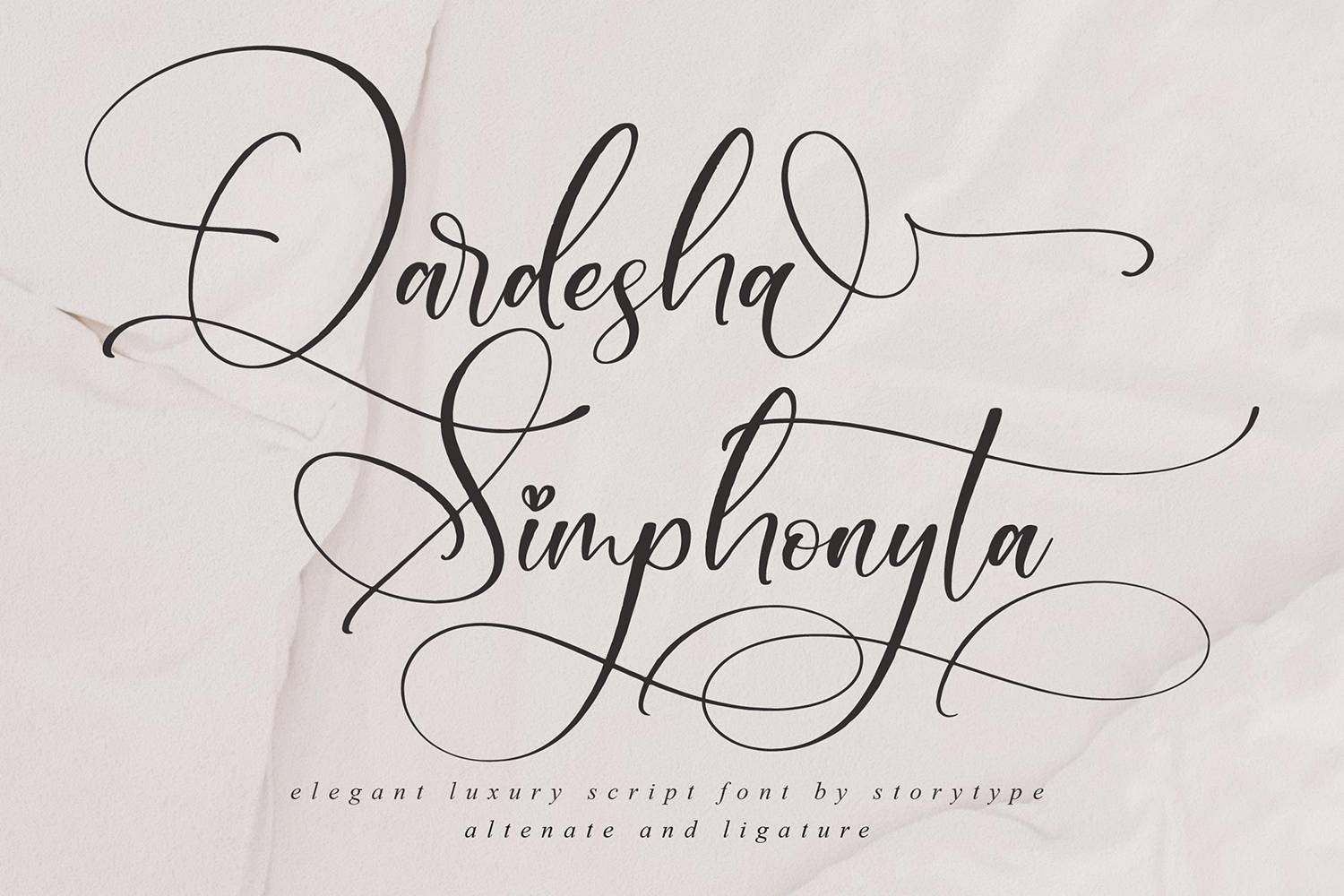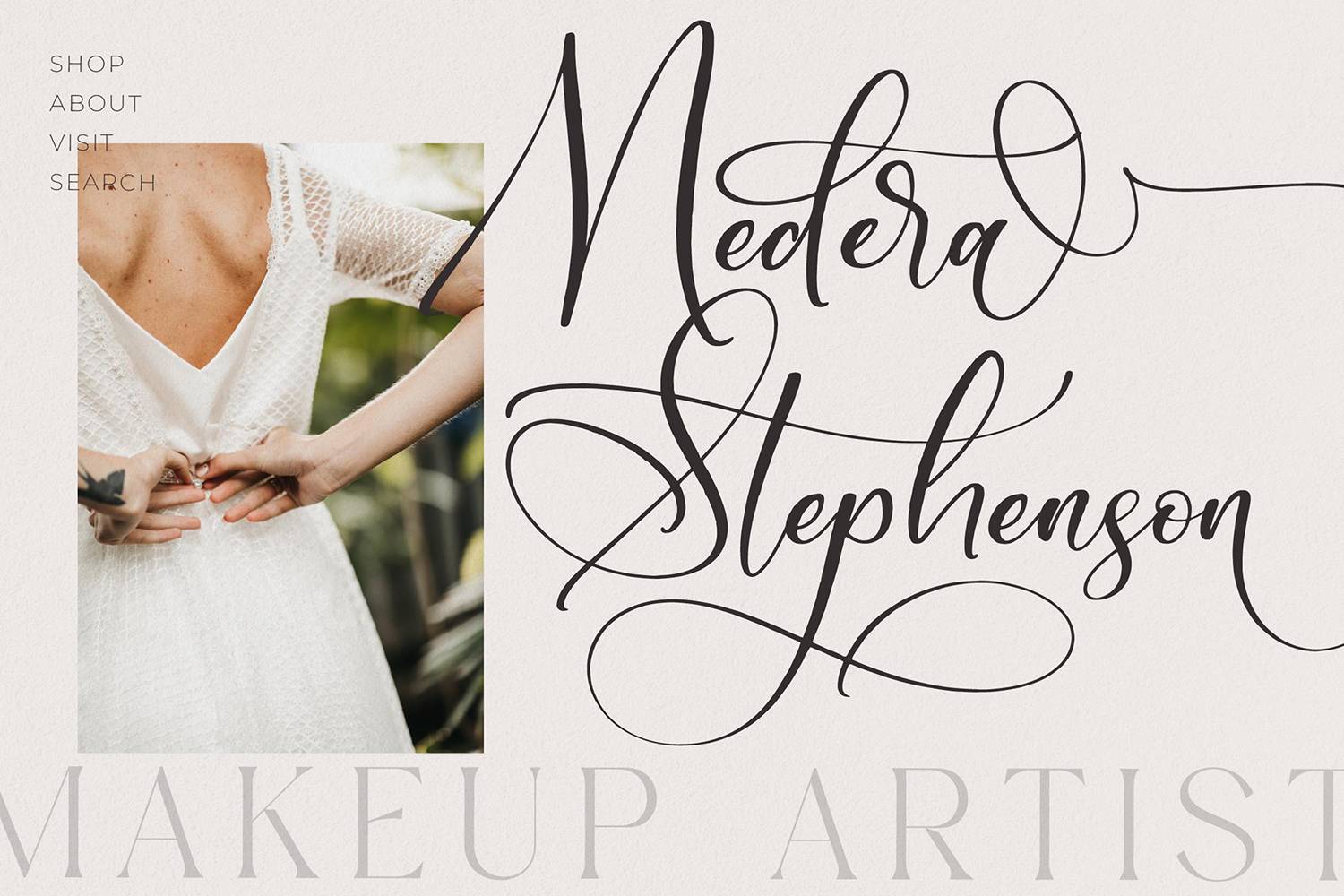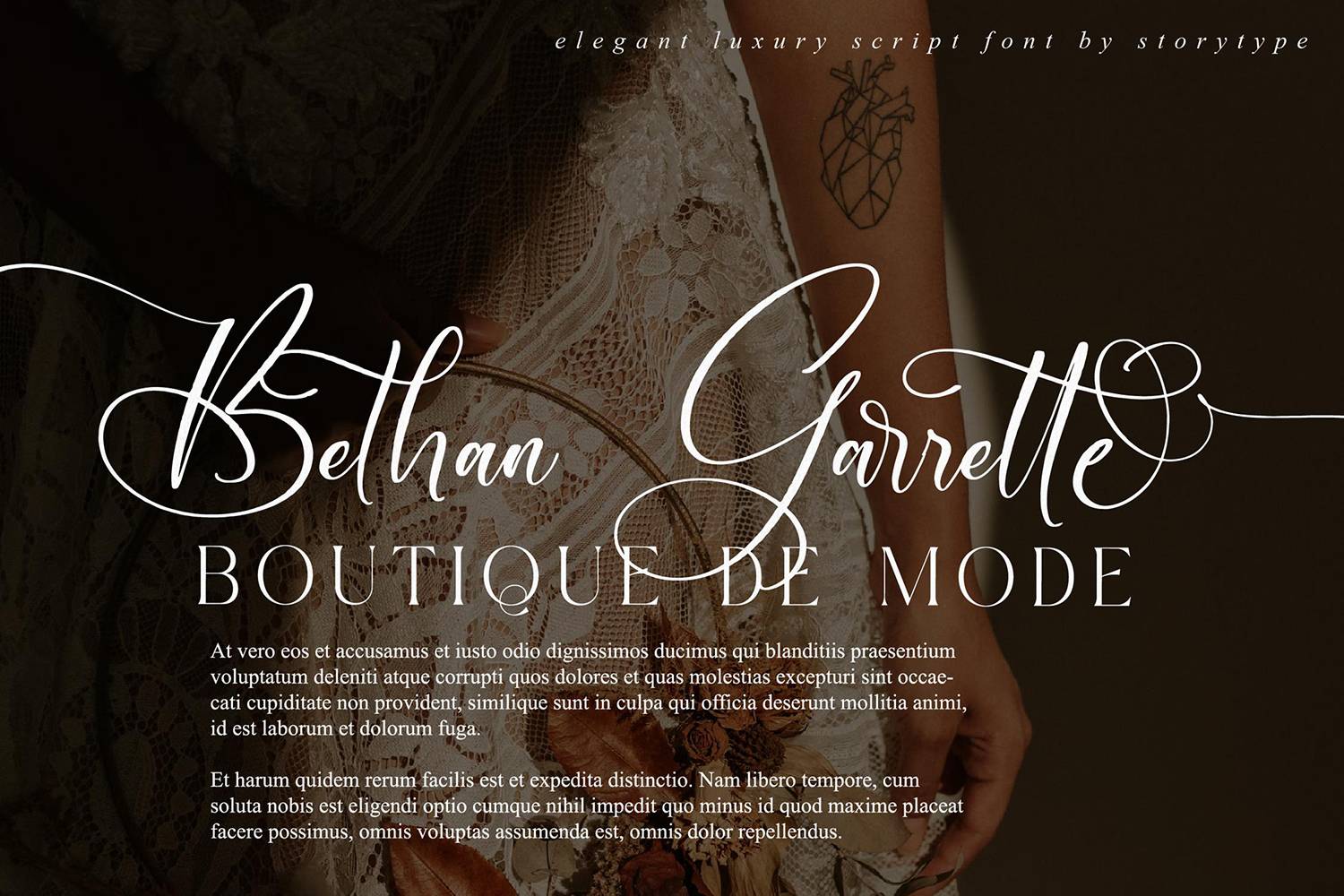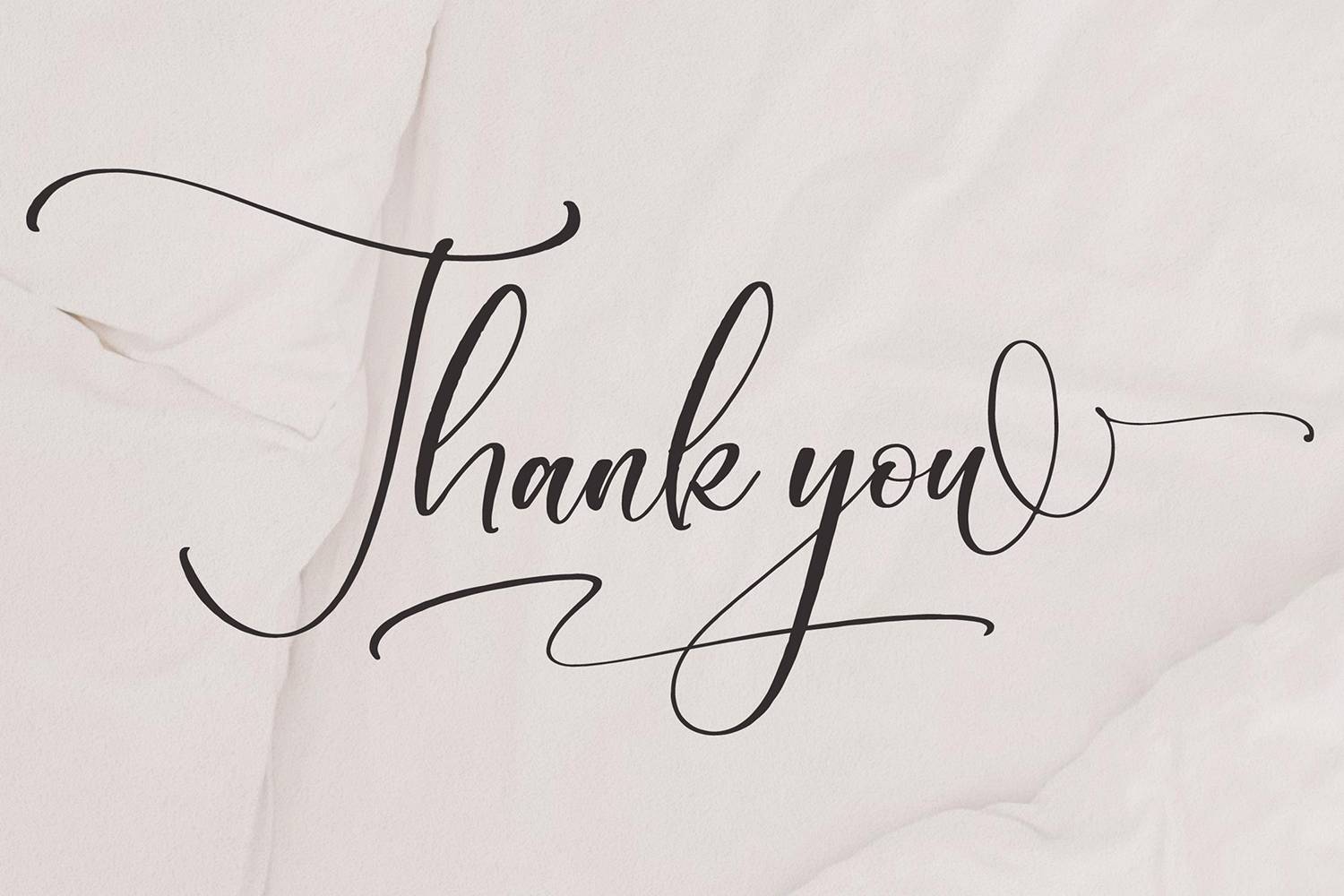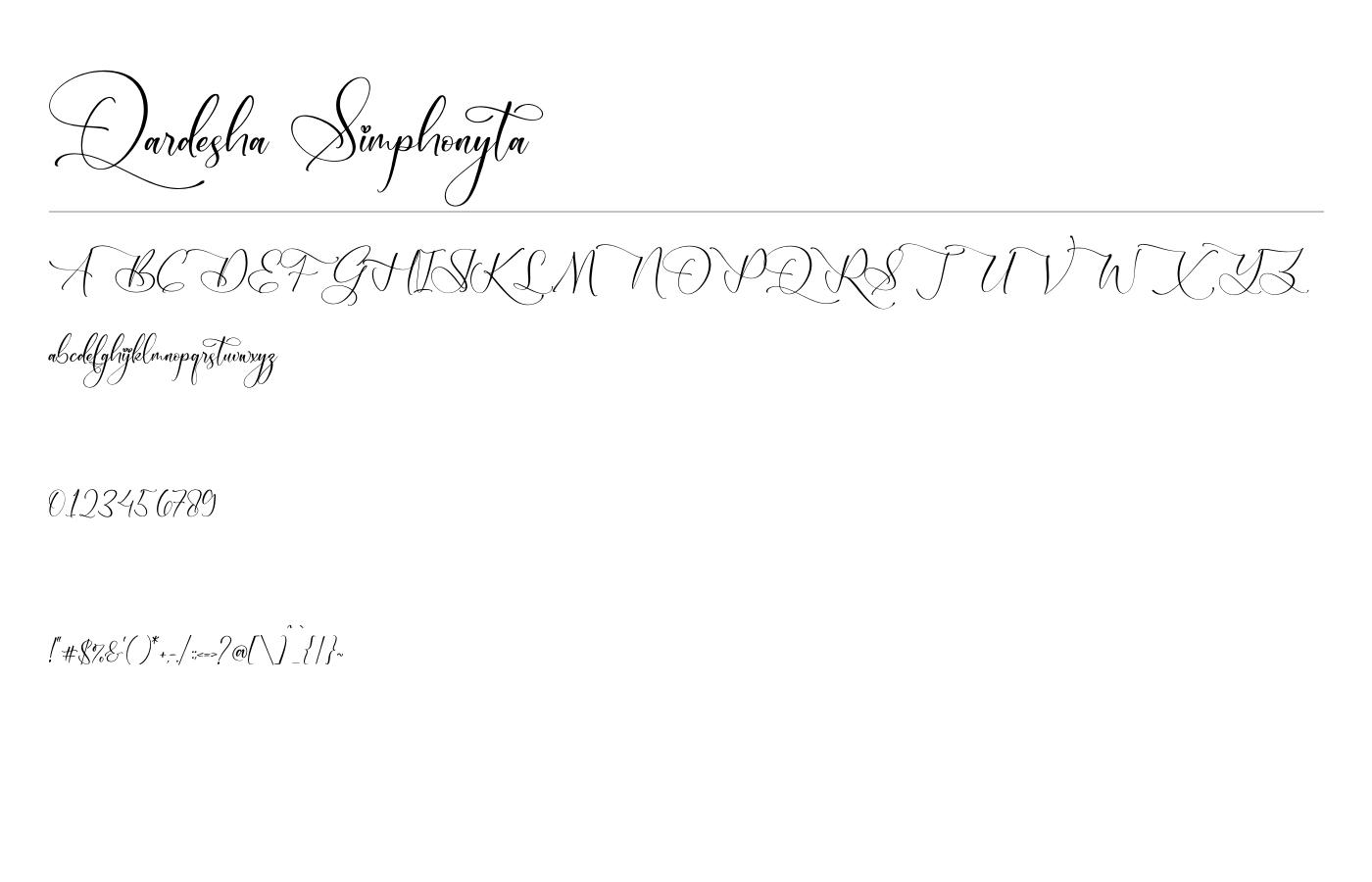
Qardesha Simphonyta is an elegant script font characterized by delicate, flowing strokes and refined, ornate swashes that create a graceful, stylish appearance. Its slender weight and high contrast between thin and thicker lines give it a sophisticated, romantic feel, making it perfect for luxury branding, wedding invitations, and upscale editorial use where decorative flair and elegance are key. This font shines in headlines and logos that seek to communicate refinement and artistic beauty.
Qardesha Simphonyta Font
About Qardesha Simphonyta Font